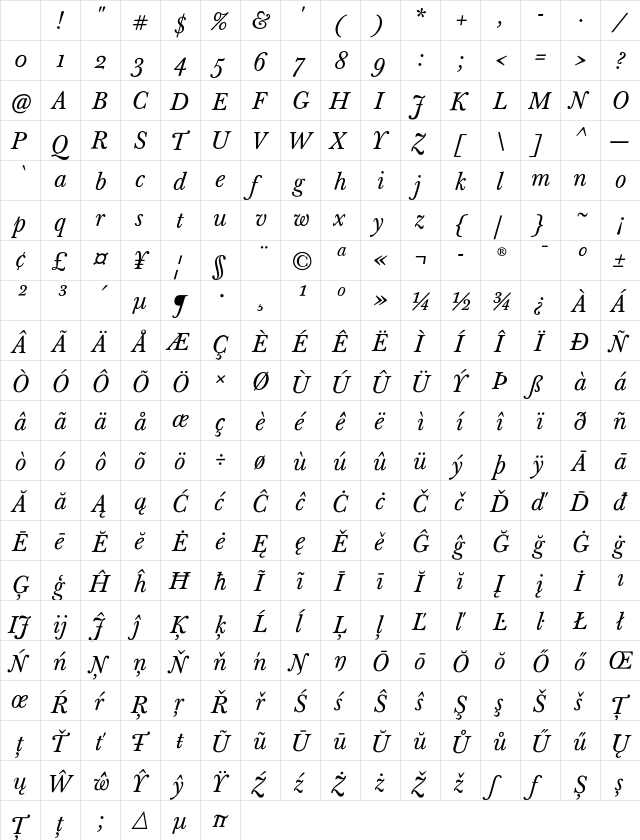
Complete Baskerville Ten Pro Italic glyph index. Displaying only characters natively supported by Baskerville Ten Pro Italic font.
Baskerville Ten Pro is a composed and adaptable typeface that performs quietly and consistently across a wide range of design contexts. The slanted form adds forward momentum and visual energy.
Pro Tip: Use Baskerville Ten Pro for emphasis, pull quotes, and subheadings where its slanted energy can add rhythm to the layout.